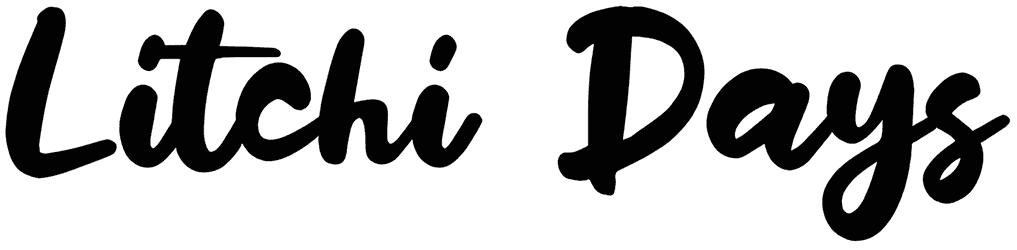
Litchi Days Font
Litchi Days is a script font that can be your superior game-changer in the middle of designing high-end graphic content like animation posters, logos, flyers, menus, or billboards. This handwritten font comes with a personalized touch and conveys a vibe of vitality, dynamism, dreaminess, or tenderness. We have gathered a wide font collection for your convenience, so don’t forget to visit the RB archive.